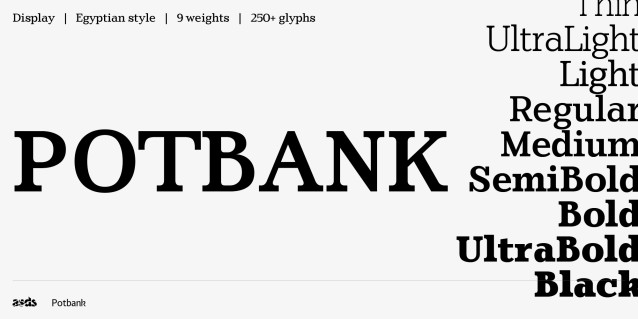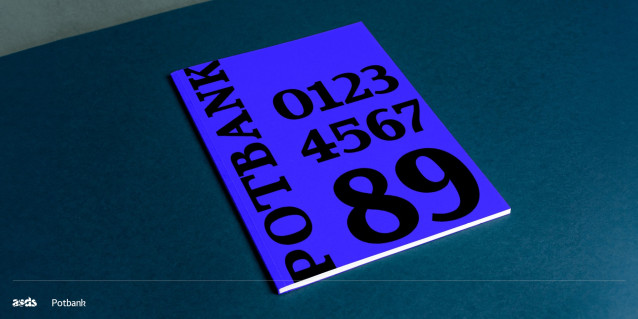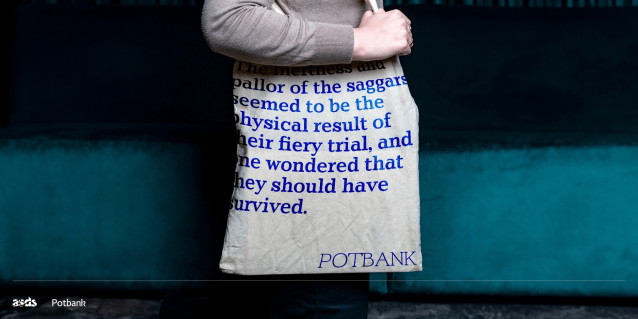
Potbank Font Family
Potbank Font Family has been in development over a number of years taking inspiration from the heritage and designs from the ceramics industry. It has a mixed Clarendon and Antiqua style structure with its main purpose to be used as a printed type.